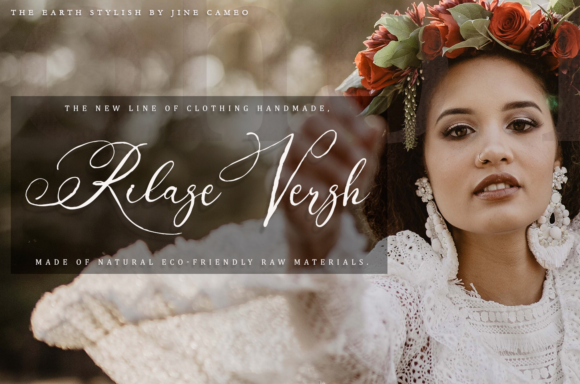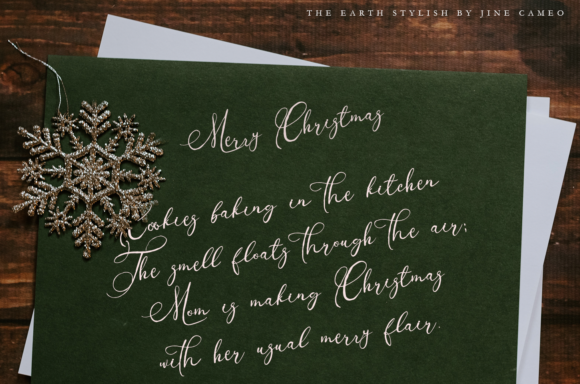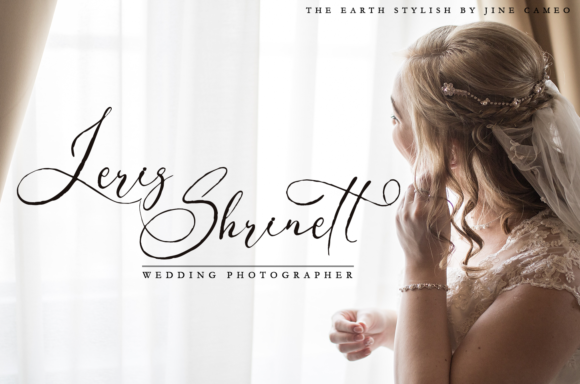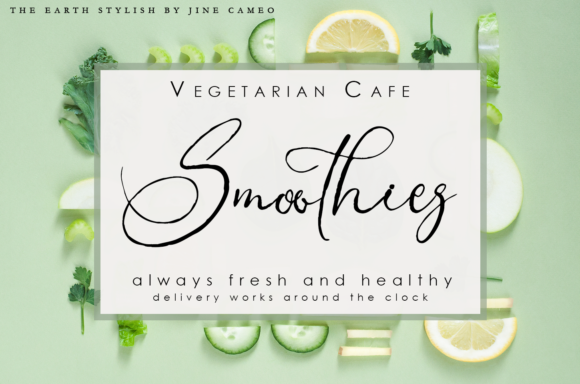
The Earth Font
About The Earth Font
The Earth sets a very distinct mood that feels grounded and organic. Its down-to-earth vibe makes it a great font for anything from branding to greeting cards!